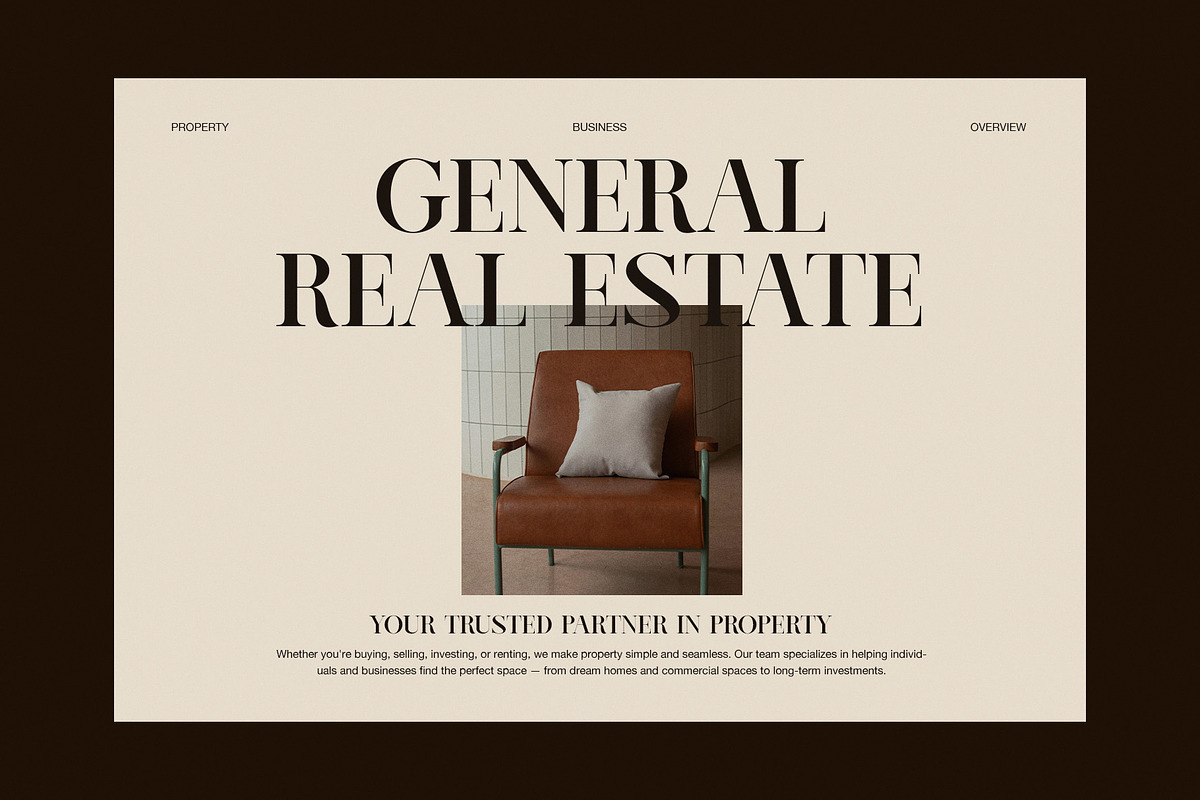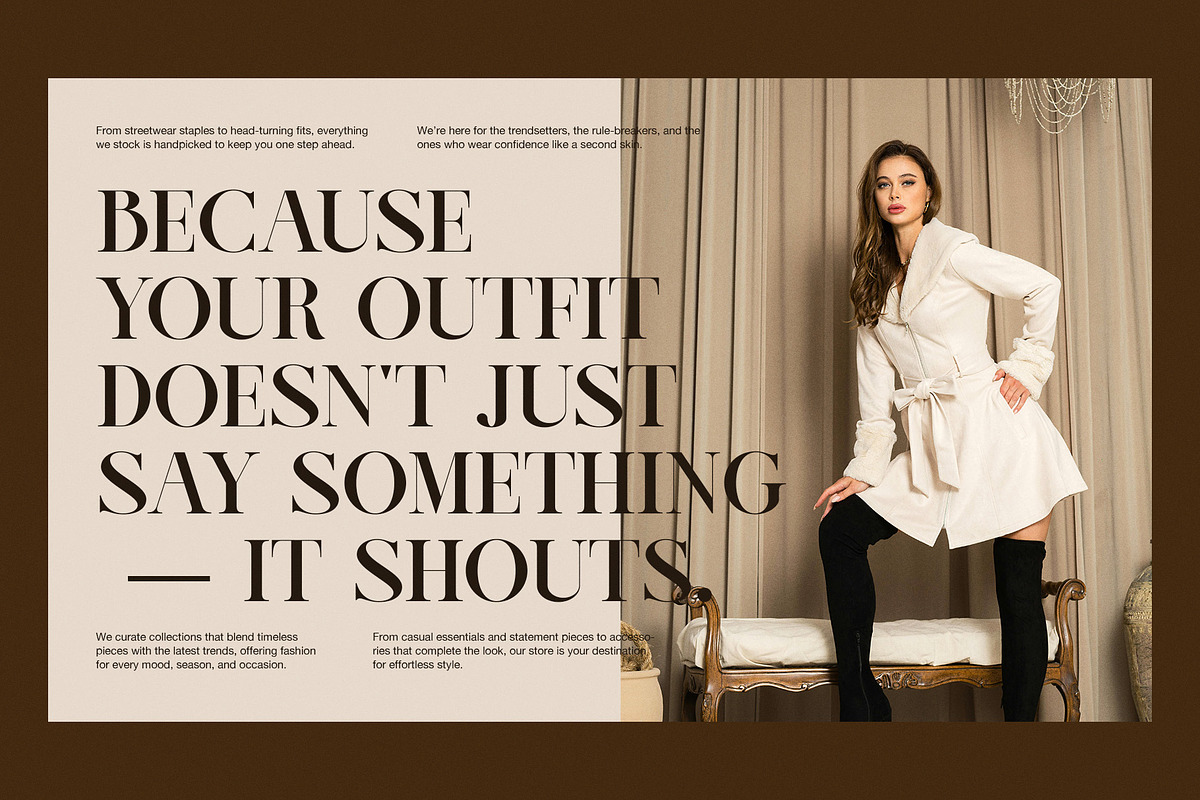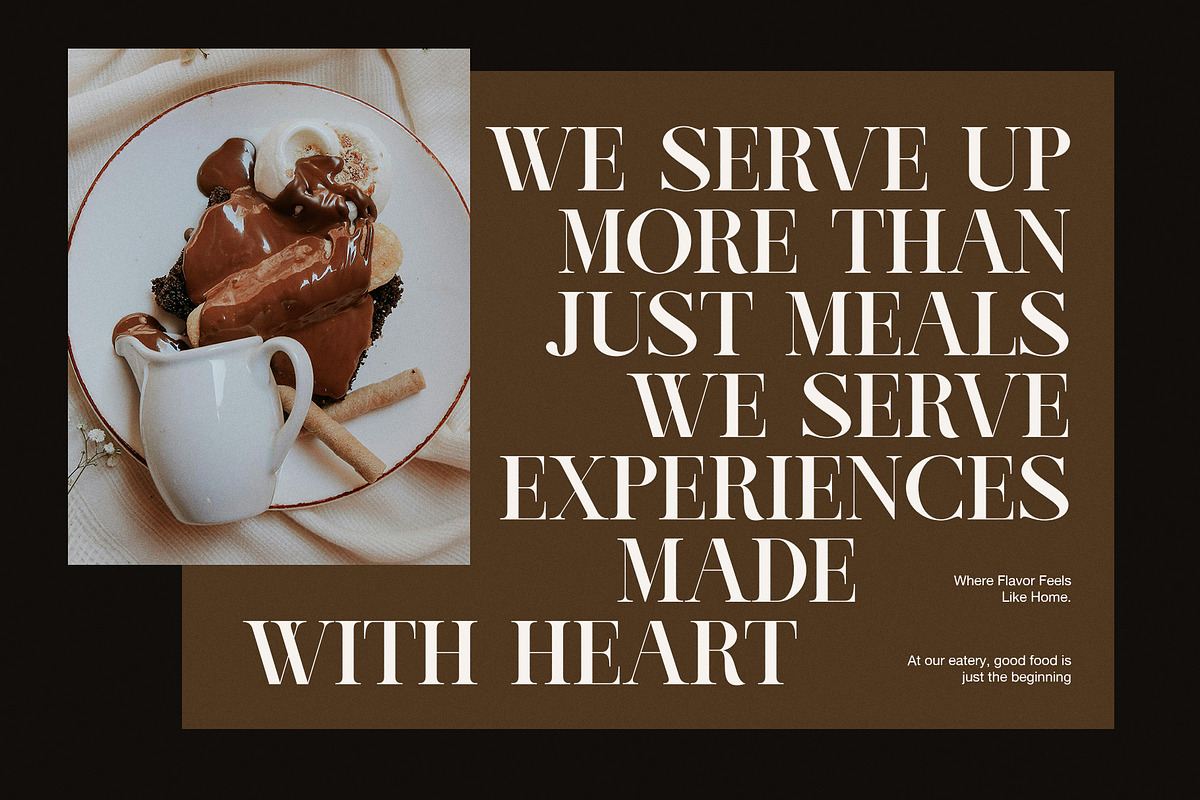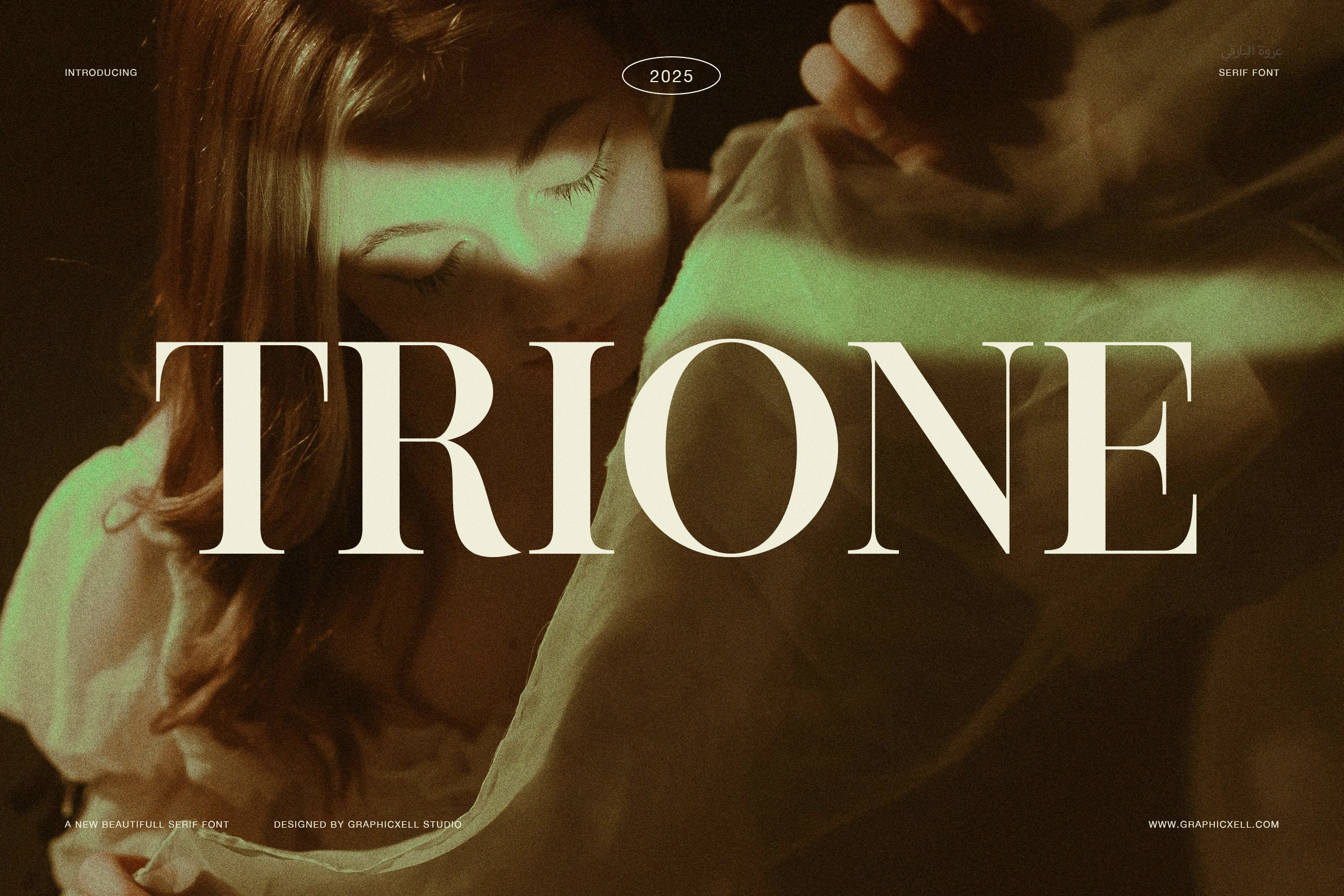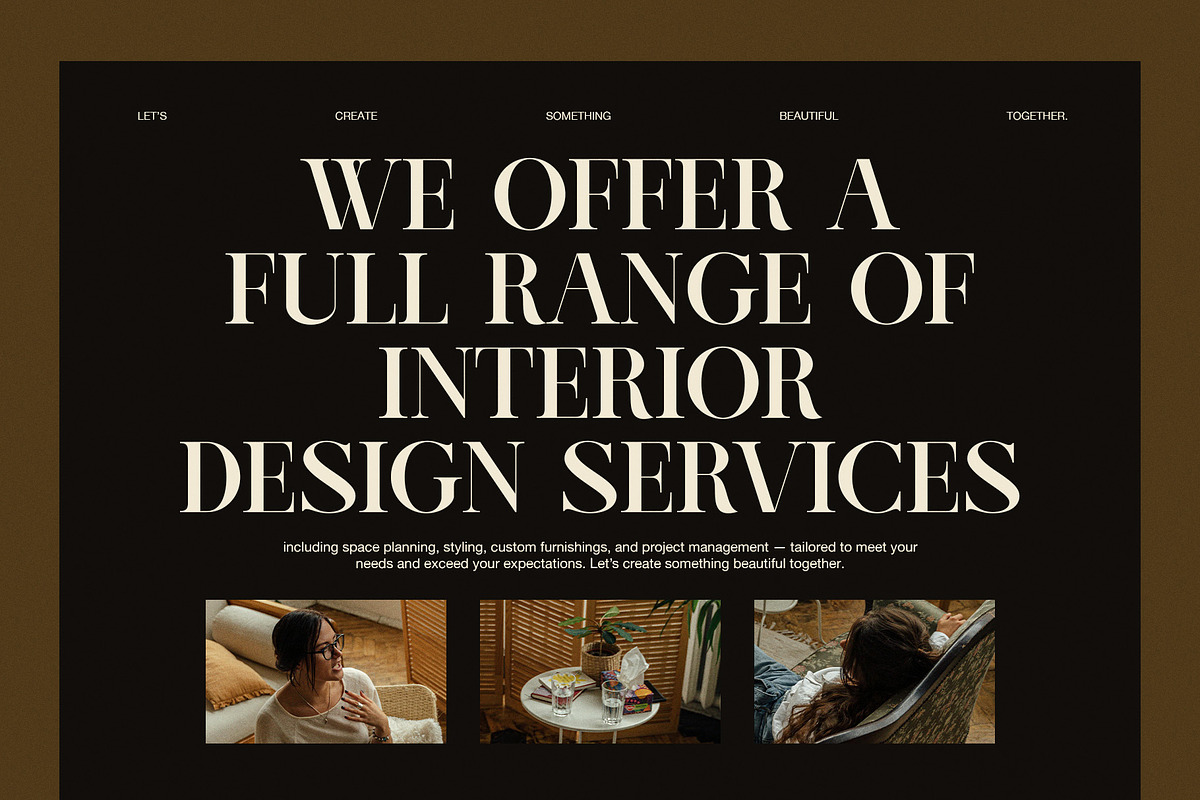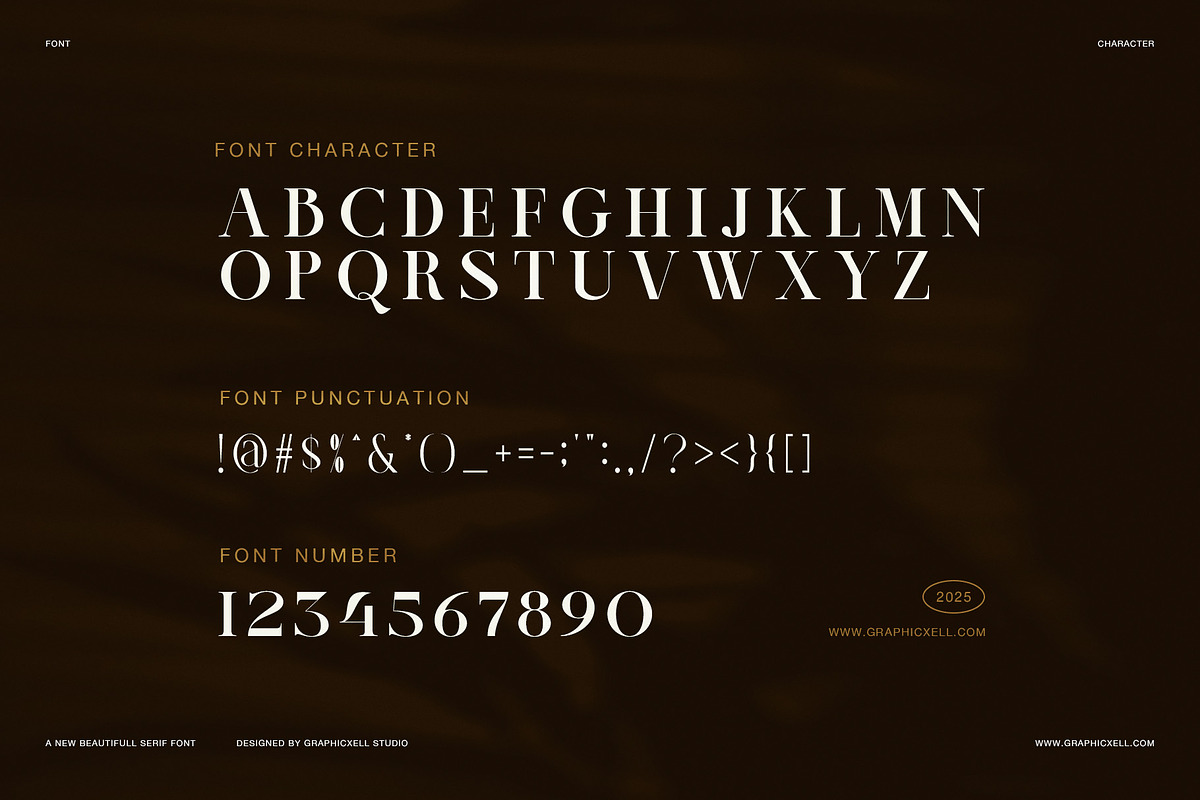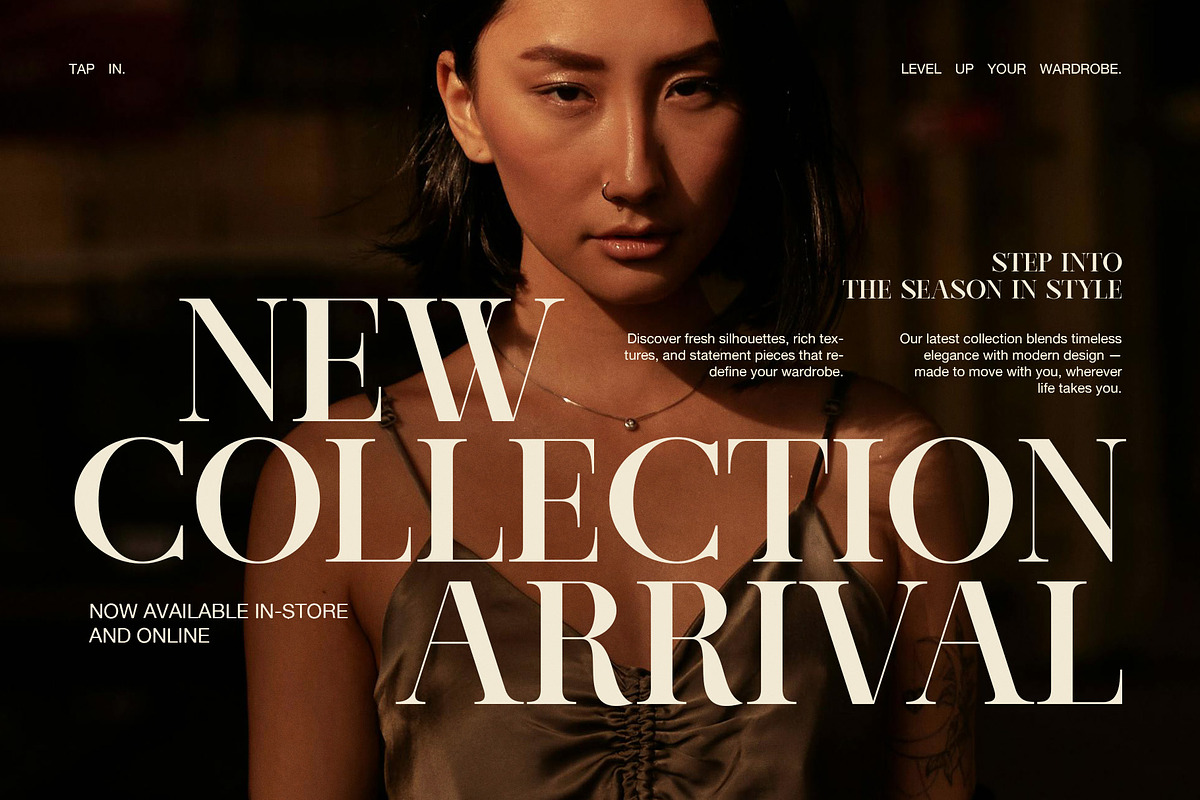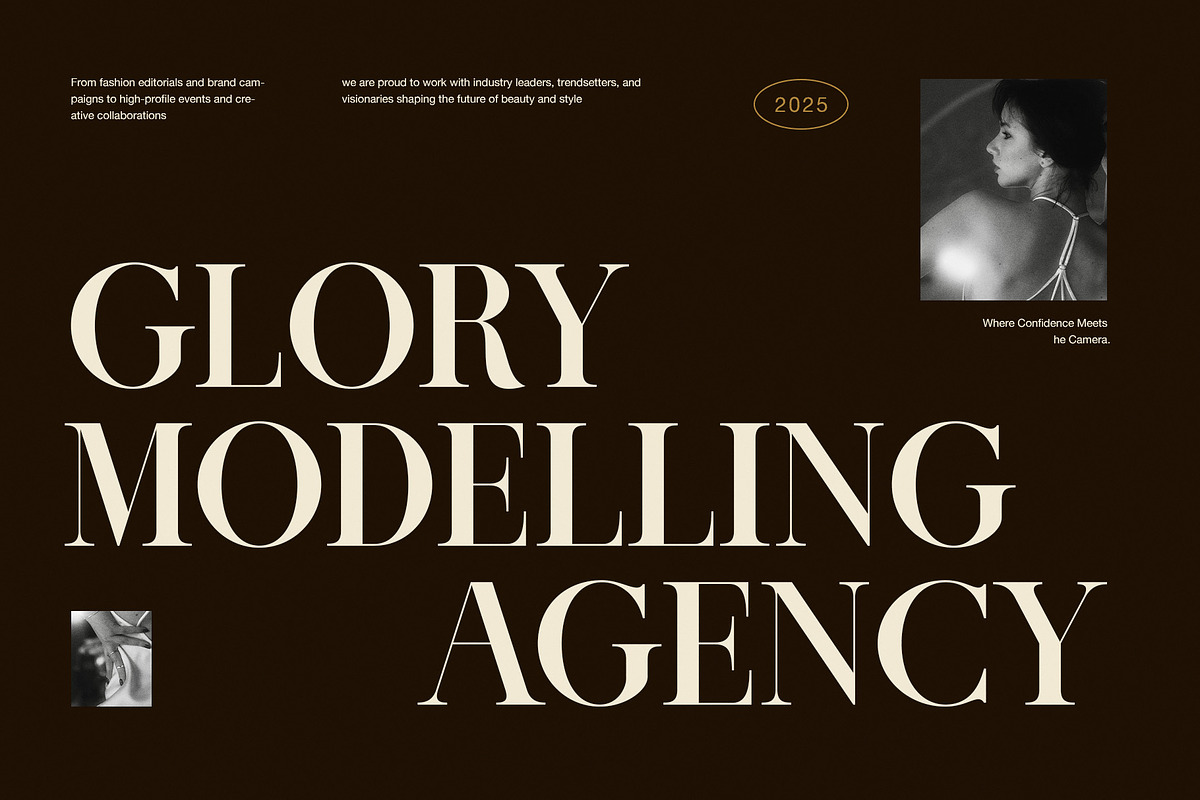
Trione Elegant Serif Font
A Modern Serif with Classic Sophistication
The Trione Elegant Serif Font blends timeless charm with a refined modern look. Designed to balance elegance and readability, it offers a sophisticated style that shines in both print and digital media. Because of its high contrast and sleek proportions, Trione gives every design a professional and luxurious finish.
Distinctive Features and Versatility
Each letter in Trione reflects careful craftsmanship and visual harmony. Its soft curves, sharp serifs, and smooth flow create a confident and graceful impression. Moreover, its clear letterforms make it perfect for logos, magazines, product packaging, and invitations.
To make it even more versatile, Trione includes:
Elegant alternates and refined ligatures for creative variations
Multilingual support for global branding and editorial work
Perfect kerning and spacing optimized for readability
Designed for Branding and Editorial Perfection
Because of its refined details, Trione is ideal for luxury branding, editorial headlines, and event stationery. When paired with a clean sans-serif, it builds contrast and adds balance. On the other hand, when used alone, it creates a statement that feels timeless and high-end.
Furthermore, Trione performs beautifully in all formats. Whether you design an elegant magazine, a wedding logo, or fashion packaging, this font ensures a polished and consistent result.
Why Choose Trione Elegant Serif Font?
Trione is more than a typeface — it’s a design essential that transforms typography into visual art. With its luxurious form, creative flexibility, and modern classic appeal, Trione empowers every project to look refined, sophisticated, and unforgettable.